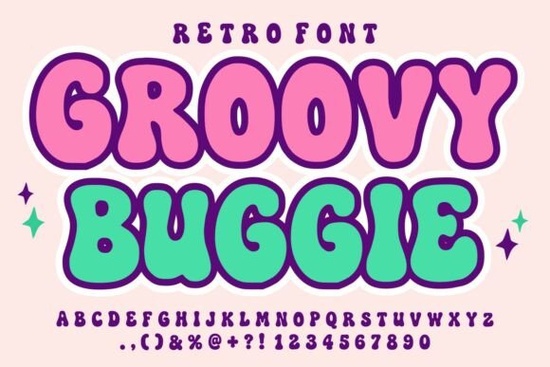
If you're looking for a bold, playful font that brings energy and nostalgia to your designs, Groovy Buggie Font is a standout choice. This retro-inspired display font captures the vibrant spirit of the 60s and 70s with its chunky, rounded letterforms and cheerful curves. It’s perfect for projects where you want to make an instant impression whether it’s a kids’ product, a party invitation, or a fun social media post.
What Makes Groovy Buggie Font Special?
Unlike plain or minimalist fonts, Groovy Buggie stands out because of its unique bubble-like shapes and friendly personality. The smooth, rounded edges give it a warm, approachable feel that works well for both children and adults. It’s not just decorative it’s designed to be readable even at larger sizes, making it ideal for posters, stickers, branding, and merchandise.
The font’s retro vibe comes from classic pop culture aesthetics, but it’s built with modern usability in mind. You can use it confidently across digital and print formats without worrying about legibility issues. Whether you’re creating a YouTube thumbnail or designing a t-shirt, Groovy Buggie adds character and fun in a way few other fonts can.
Where Can You Use Groovy Buggie Font?
Its versatility means it fits into many creative areas. Here are some common uses:
- Retro branding – Give your business a nostalgic touch with a fun, eye-catching logo.
- Children’s products – Perfect for toys, storybooks, and classroom materials that need a lively look.
- Toy packaging – Stand out on shelves with bold, playful typography.
- Sticker and merchandise design – Great for custom stickers, mugs, tote bags, and more.
- Party invitations and greeting cards – Add joy to birthdays, baby showers, or themed events.
- Social media graphics and YouTube thumbnails – Grab attention fast with dynamic text that pops.
It also pairs beautifully with bright colors, gradients, and layered effects. Try combining it with a pastel palette for a soft retro feel, or go bold with neon shades for a high-energy look. The font adapts well to different styles while keeping its core identity.
How Does It Compare to Other Display Fonts?
If you’ve explored similar fonts like gothic-style fonts, graffiti fonts, or whimsical display typefaces, you’ll notice Groovy Buggie sits in a unique space. While those options bring edge, drama, or fantasy vibes, Groovy Buggie leans into cheerfulness and warmth. It’s less intense than a gothic font and more playful than a graffiti style, making it ideal for positive, inclusive designs.
Why Designers Love This Font
Many creatives choose Groovy Buggie because it’s easy to work with. It includes full uppercase and lowercase letters, numbers, punctuation, and multiple stylistic alternates. These extras let you mix and match variations to keep your designs fresh and unique.
It’s especially helpful for small businesses and print-on-demand sellers who need consistent branding across multiple products. Whether you’re launching a line of kids’ apparel or designing seasonal decor, this font helps build a cohesive visual identity.
And if you’re a hobbyist or educator, you’ll appreciate how engaging it makes learning materials. Kids respond positively to fun, expressive fonts so using Groovy Buggie in worksheets or classroom displays can boost interest and participation.
When you want a font that feels joyful, bold, and instantly recognizable, Groovy Buggie delivers. It’s not just a trend it’s a timeless choice for anyone who values creativity and fun in design.